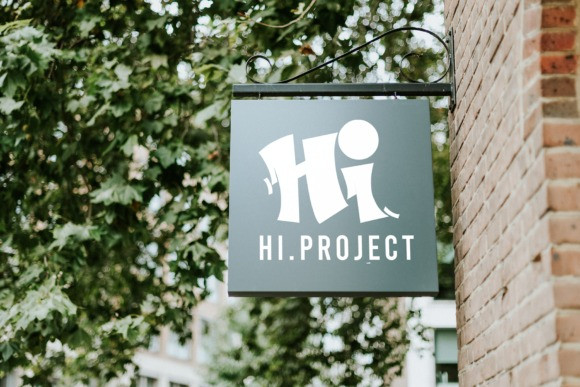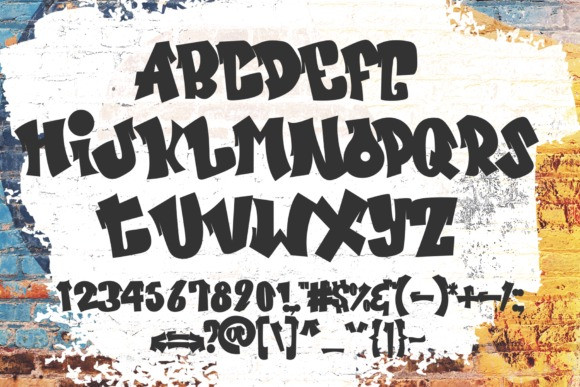
College Clean Font
College Clean Font, this font is perfect for stickers, retro projects, craft projects, shirts, svg designs, procreate designs, branding, blogs, logos, invitations and more!